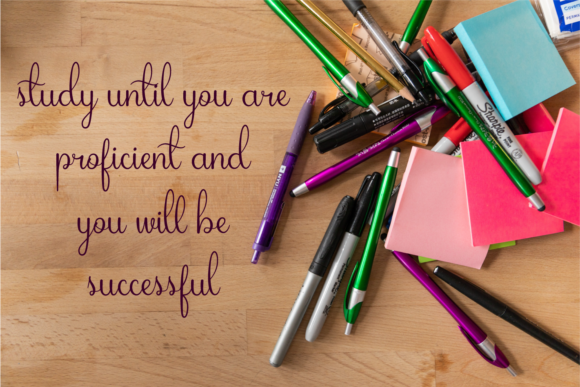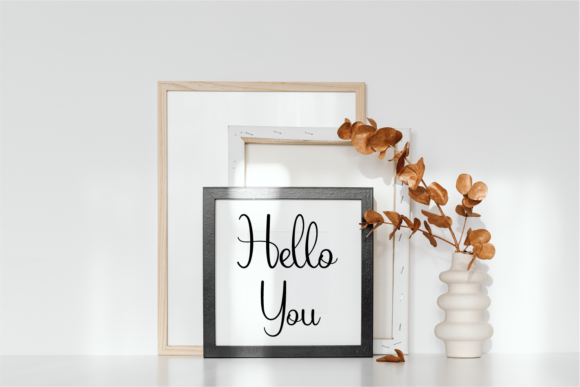
Adellia Font
db-ku.com - Script & Handwritten -- Adellia is an enchanting handwritten font. This versatile script font has a wide spectrum of applications ranging from greeting cards to headlines and is guaranteed to add a romantic feel to your next project. Adellia is PUA encoded which means you can access all of the amazing glyphs and ligatures with ease!